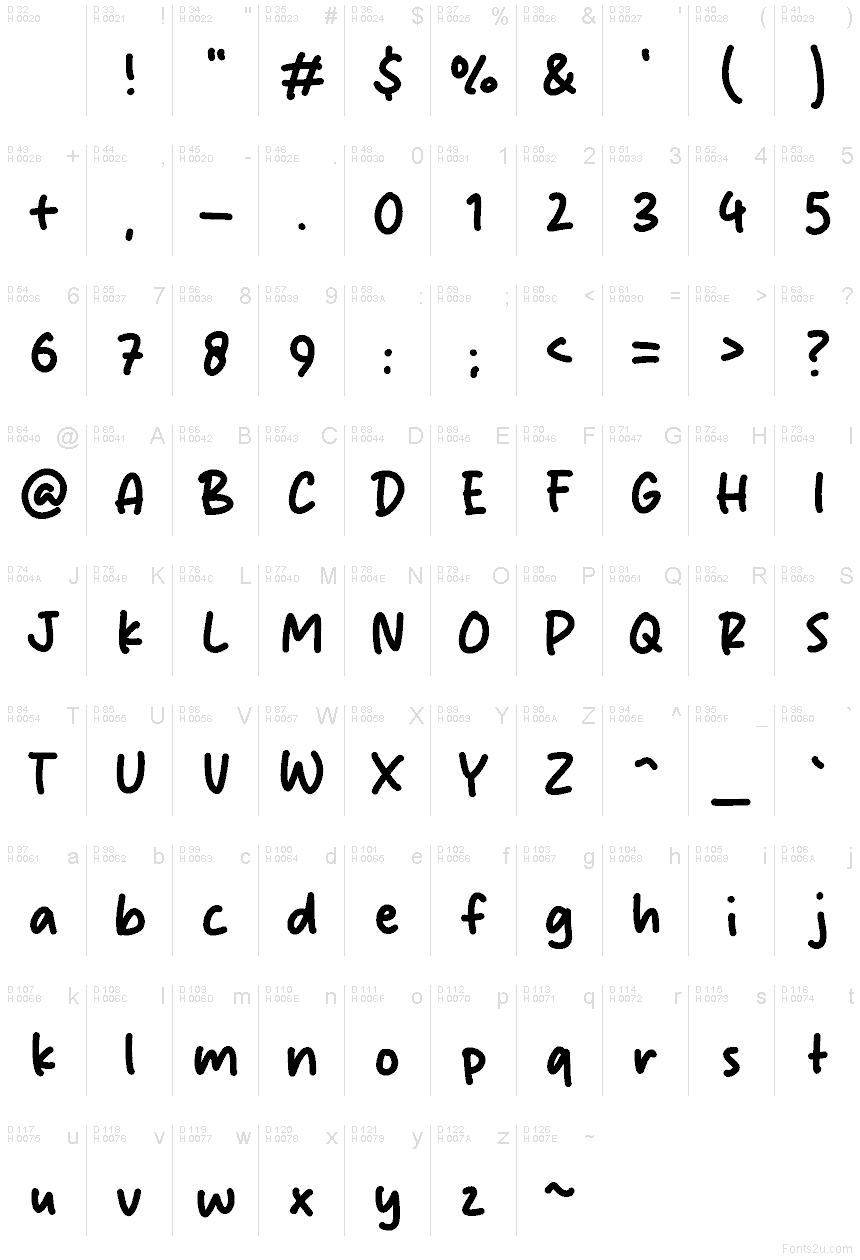
Crush Mine
Crush Mine font by Origin Type is a free handwritten display font that solves a familiar headache: getting a casual, human tone without sacrificing clarity. Its thick, inky strokes and rounded, spongey edges read cleanly at small sizes, while the gentle bounce and roomy curves keep it lively and personable. The rhythm feels steady, not messy—great when you need warmth that still behaves on a grid.
Using Crush Mine, headlines pop without shouting, making it a natural fit for social posts, product packaging, kids’ apparel, stickers, café menus, event invites, and planner covers. This free font shines on bold titles; then let a light geometric sans handle the body copy for contrast. Keep tracking snug to preserve its cuddly, hand-painted feel.